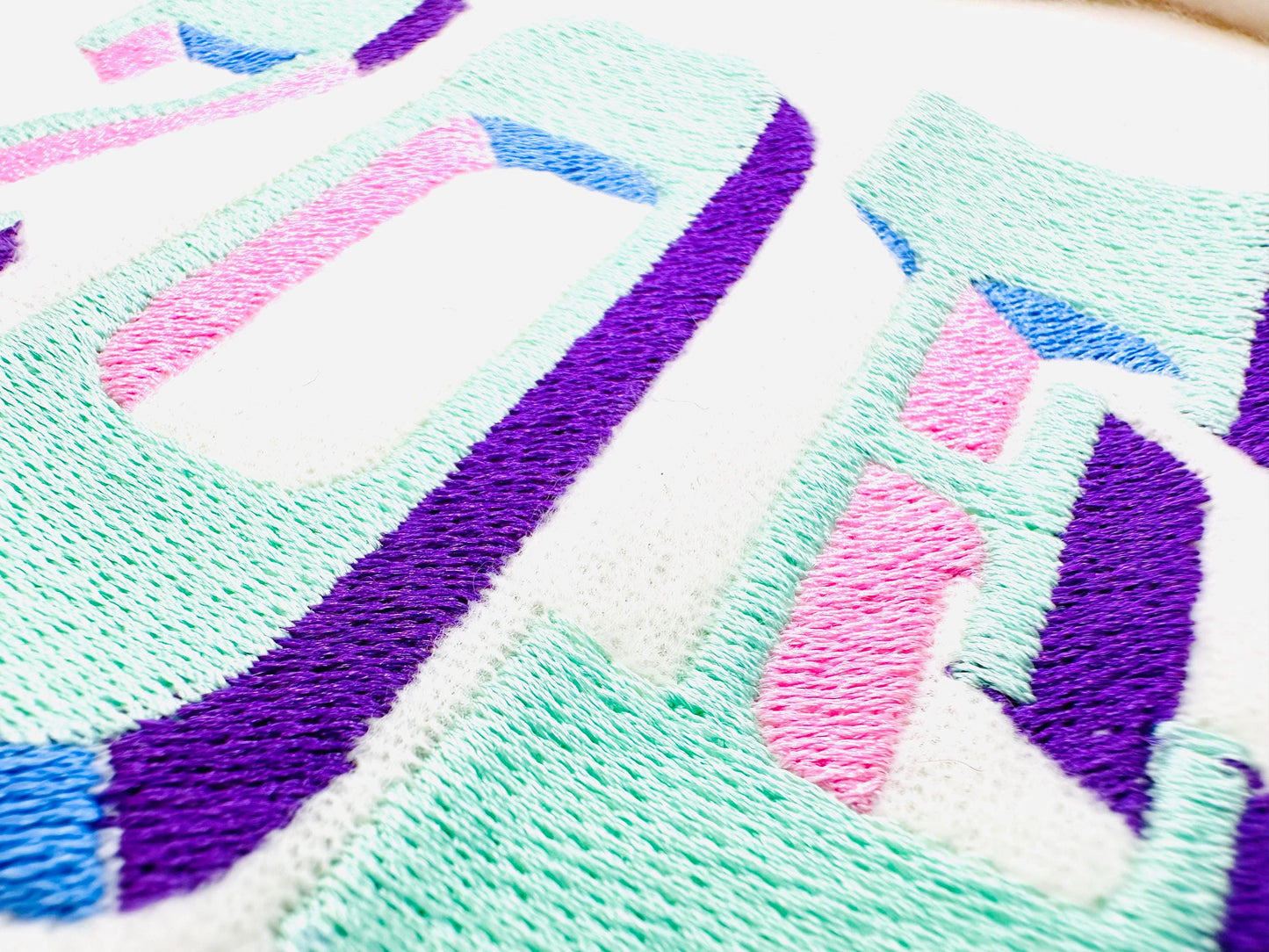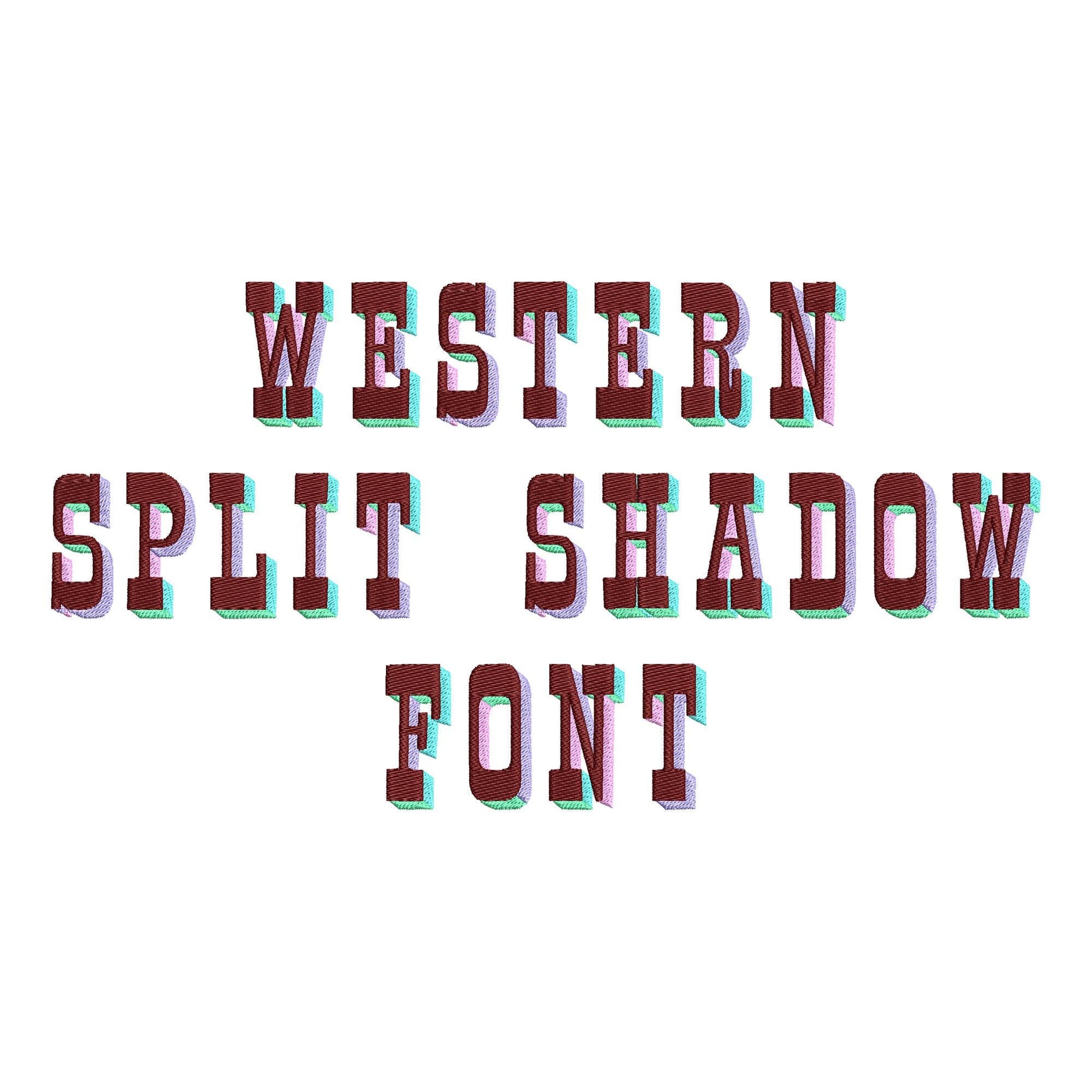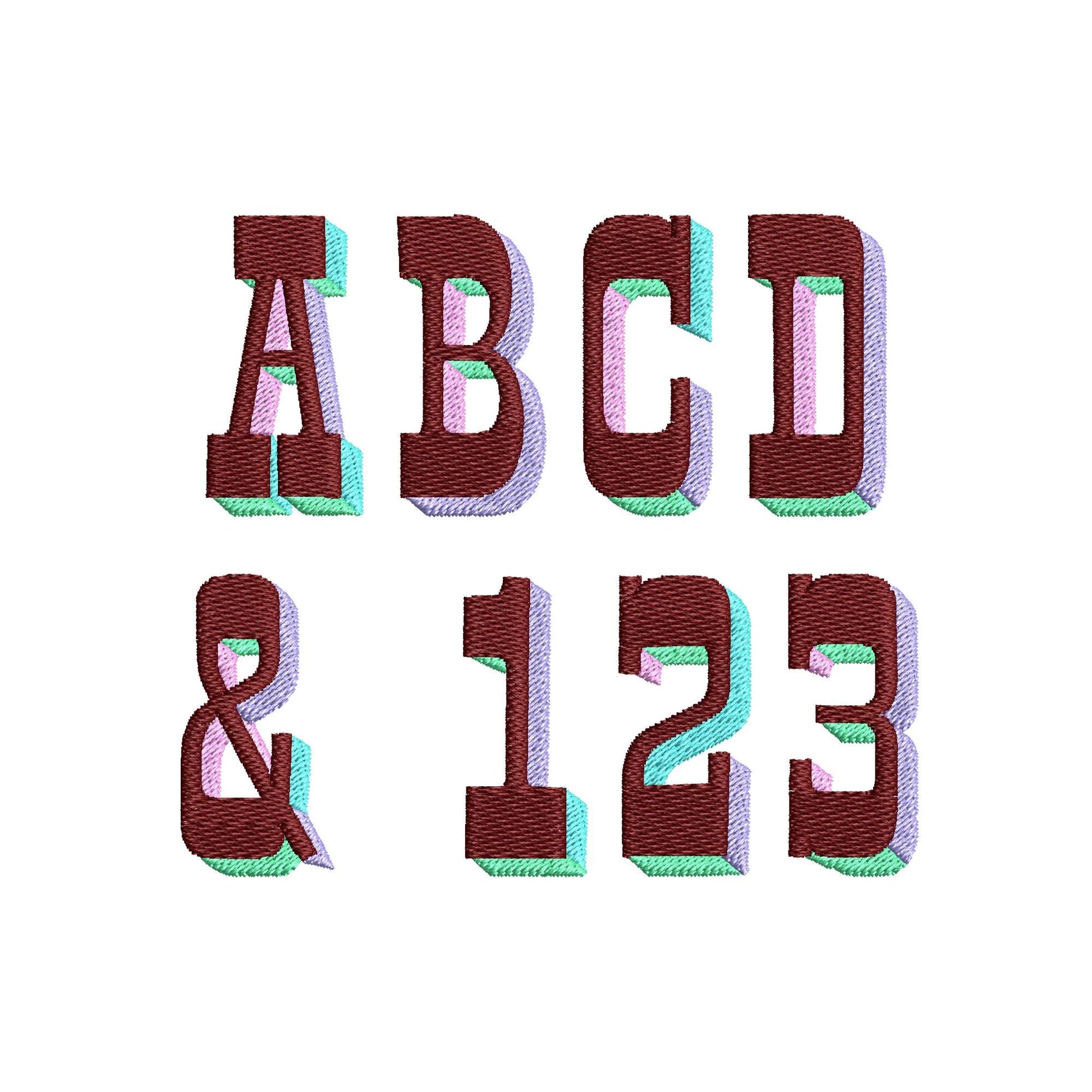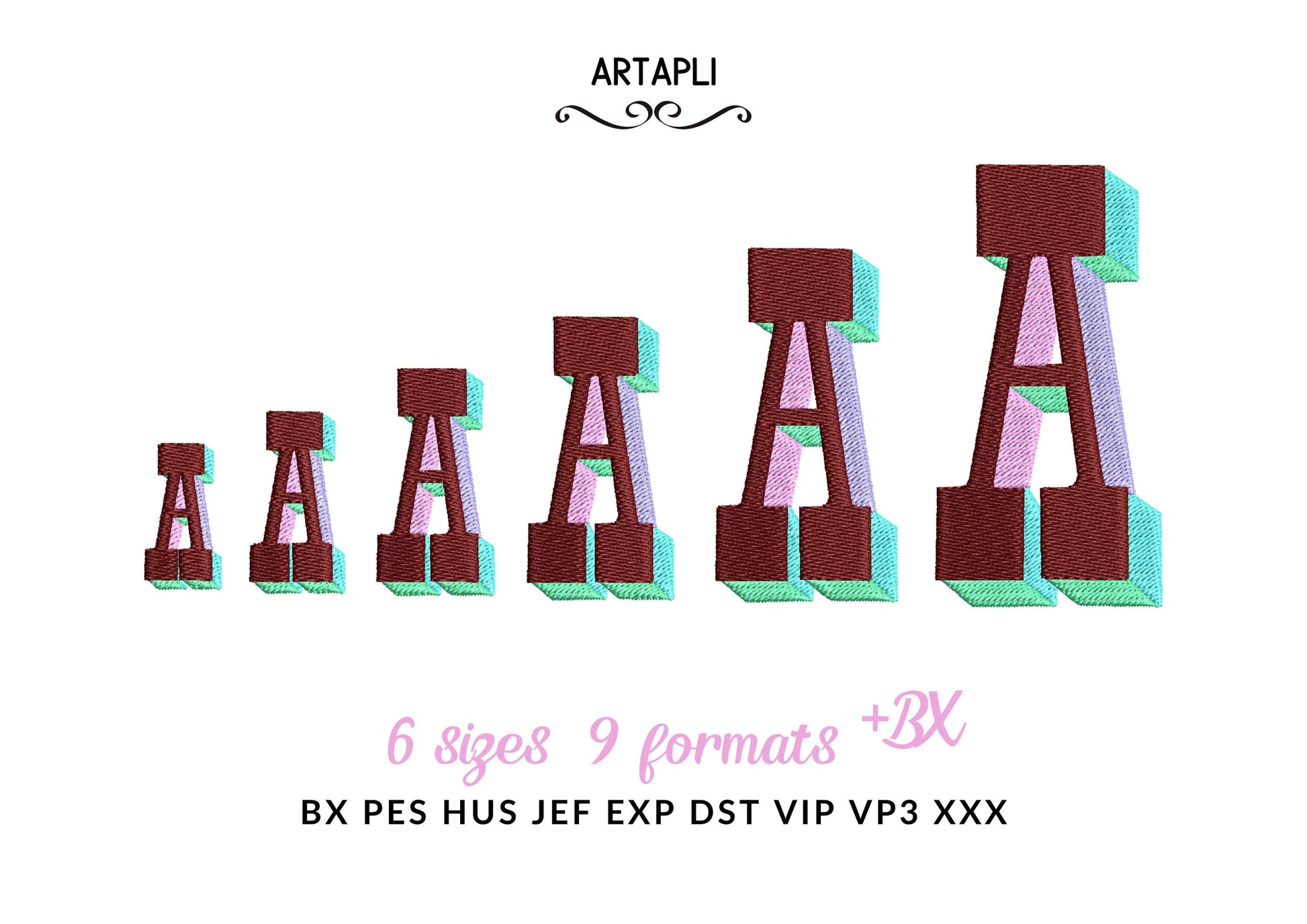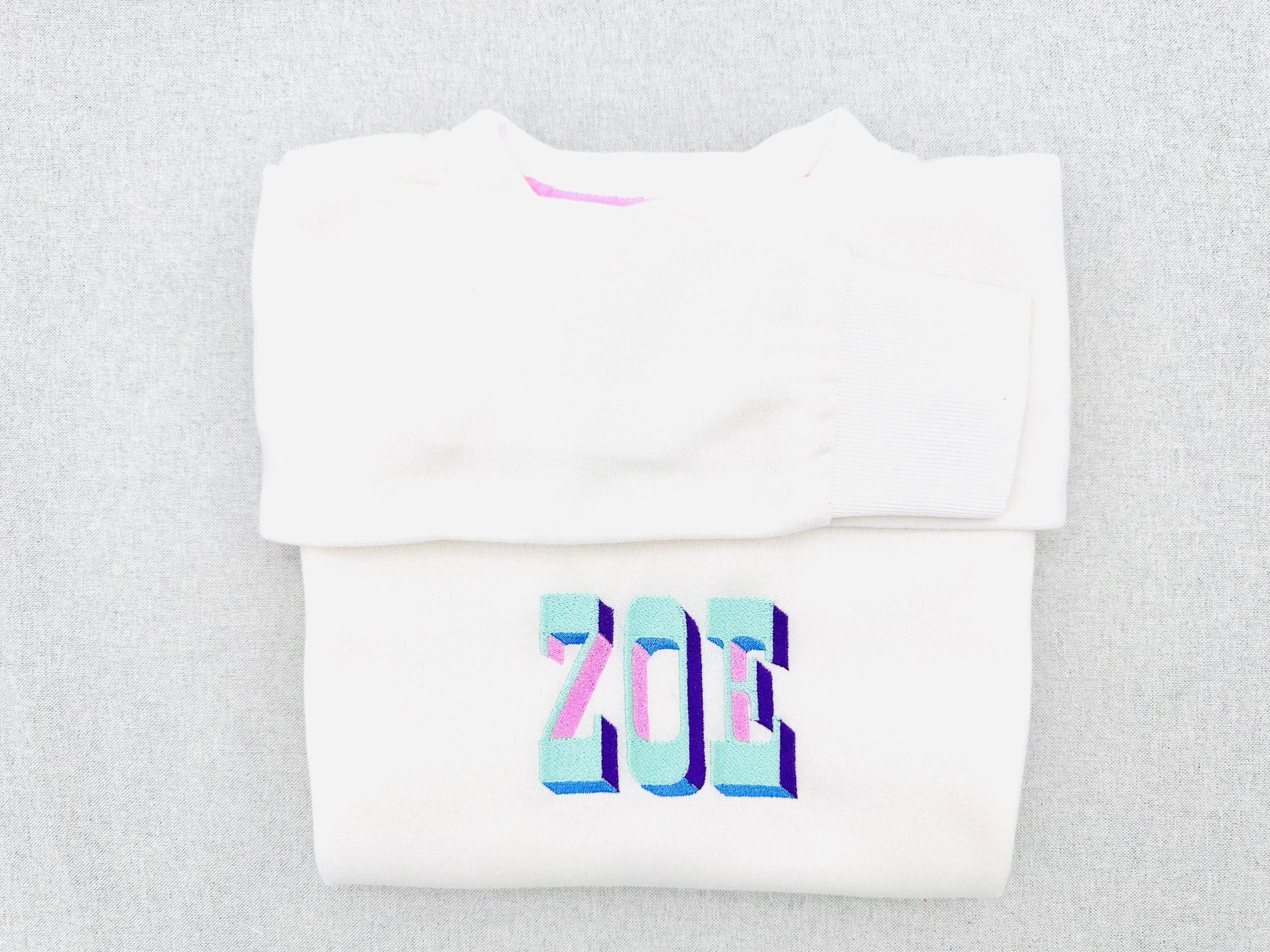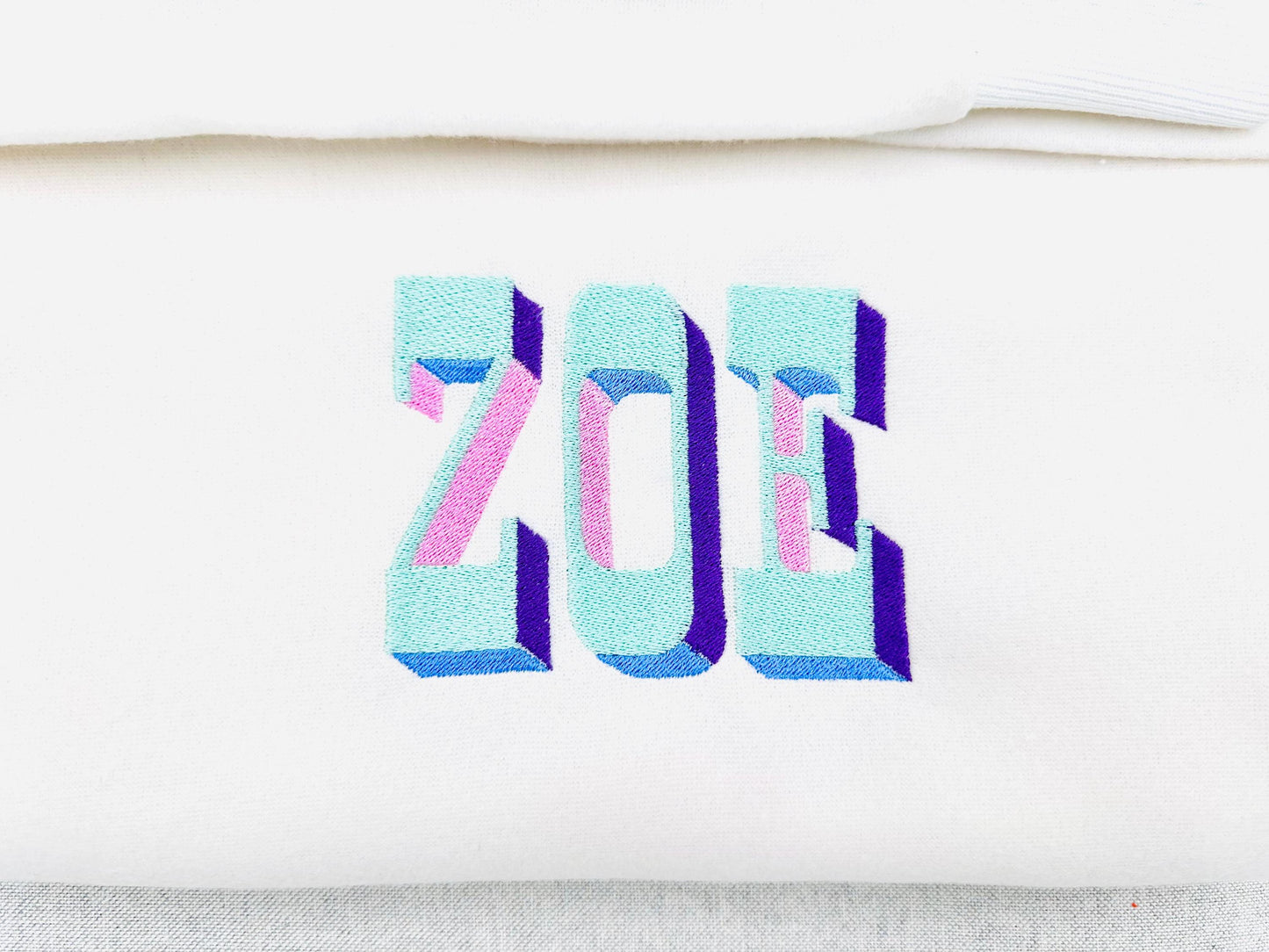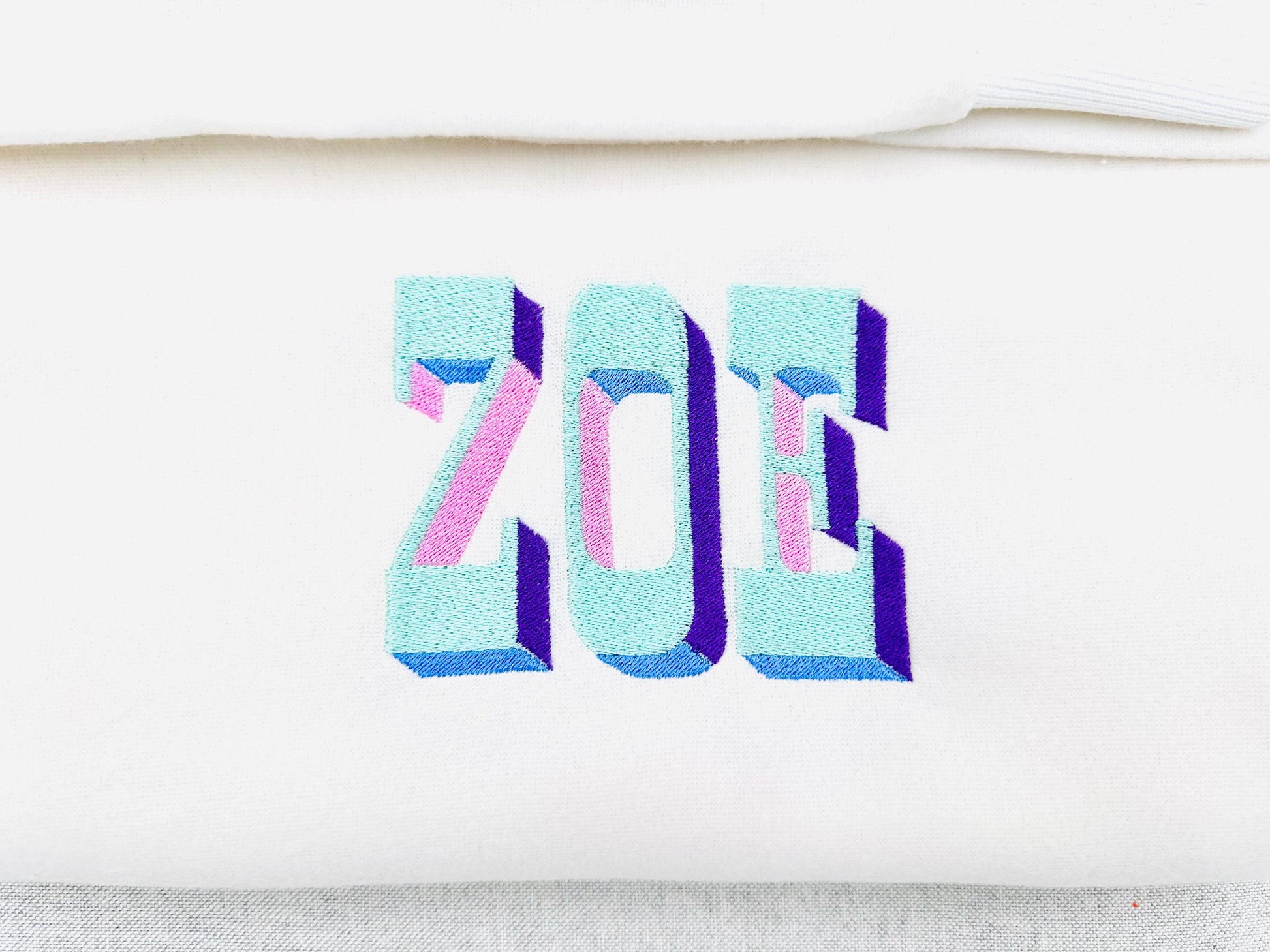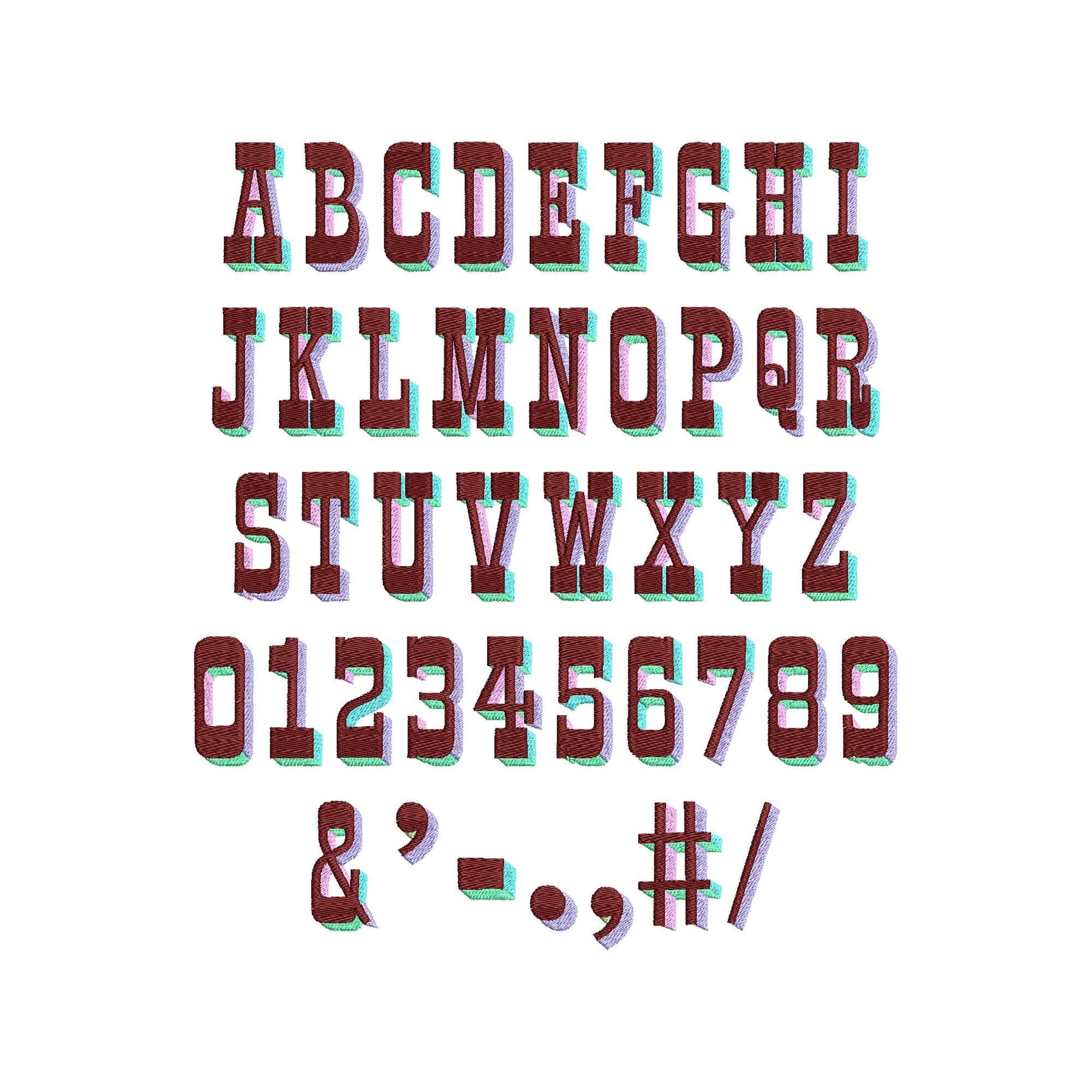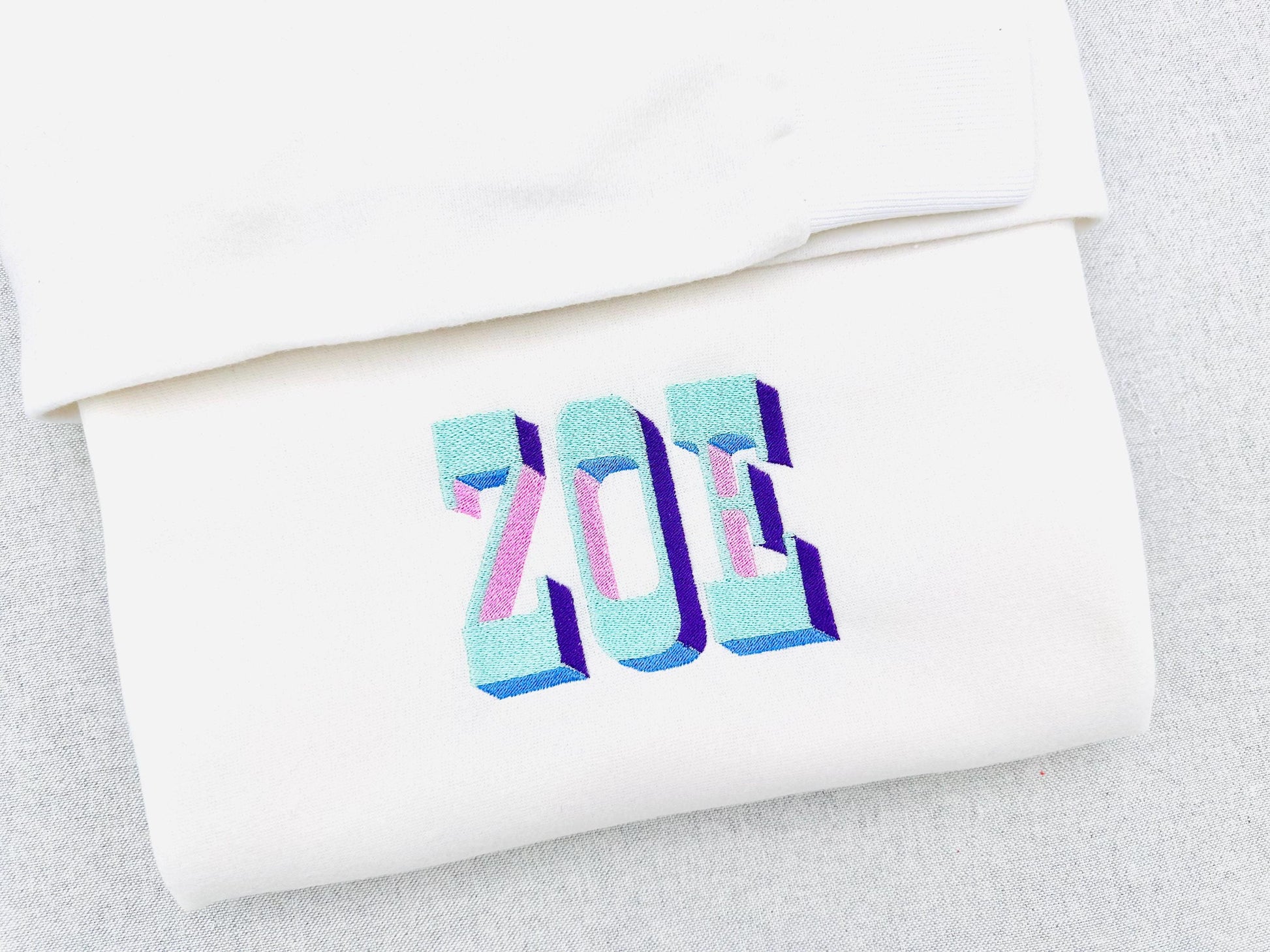
Western Split Shadow Font
Or click to open the linkA western-style block font in fill stitch with a bold split shadow. Great for names, monograms and numbers on shirts, caps and bags.
The letters come in six sizes: 1.1, 1.4, 1.7, 2.1, 2.7 and 3.4 inches. Includes uppercase letters A-Z, numbers 0-9 and punctuation.
- Western split shadow font: uppercase letters A-Z, numbers 0-9 and punctuation
- 6 letter sizes, 1.1 to 3.4 in